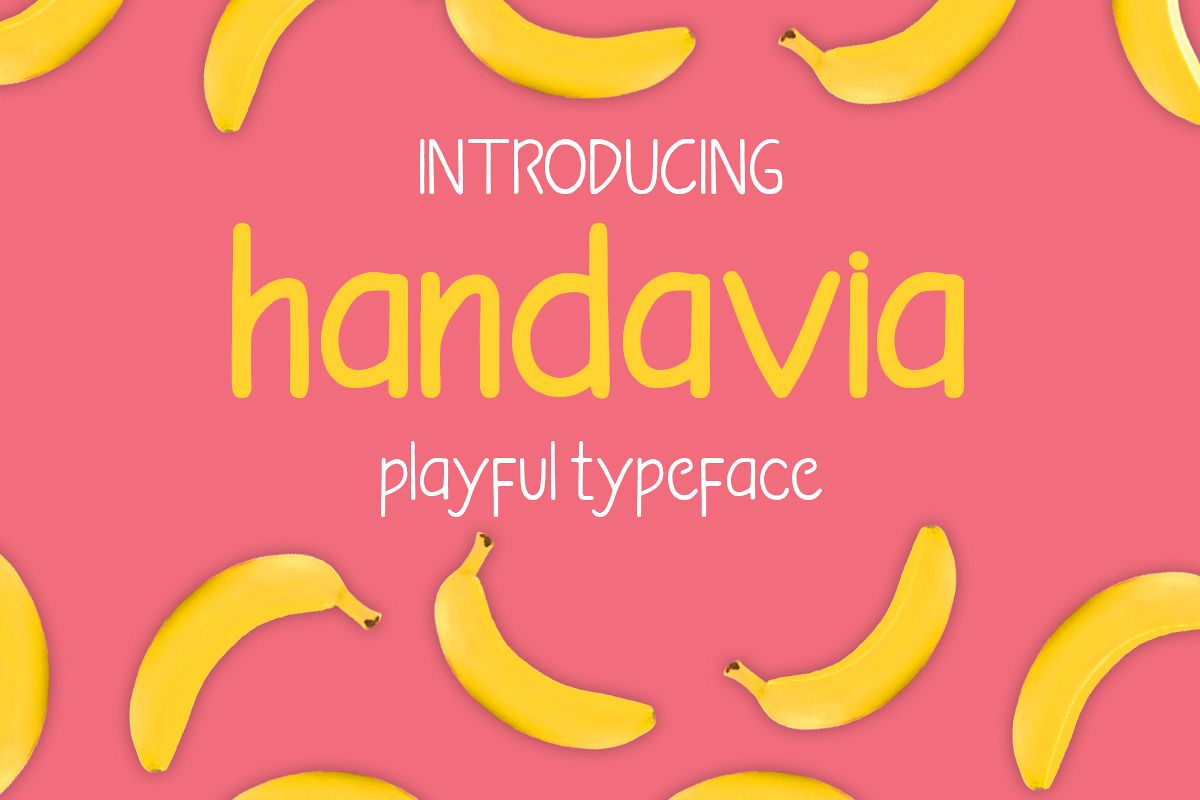
Handavia - handwritten childish font
Introducing: HANDAVIA! A sweet and simple hand-drawn font. Its curvy characters can add a bunch of personality to any project.
Handavia comes in two styles Regular and bold with multilanguage and cute ornament.